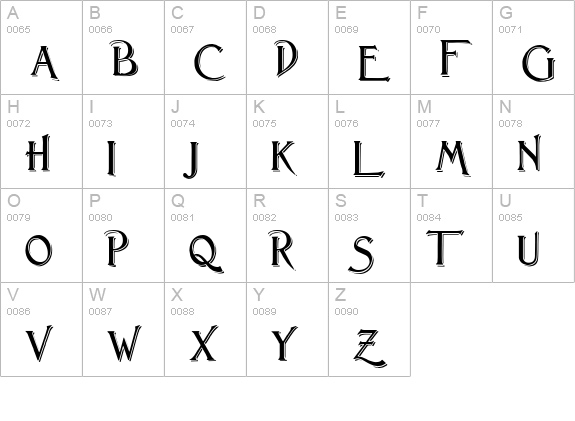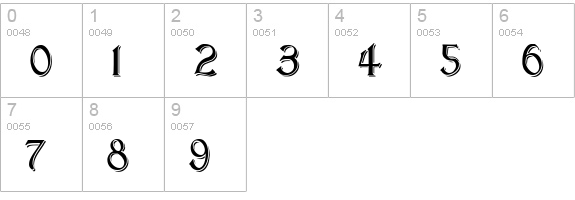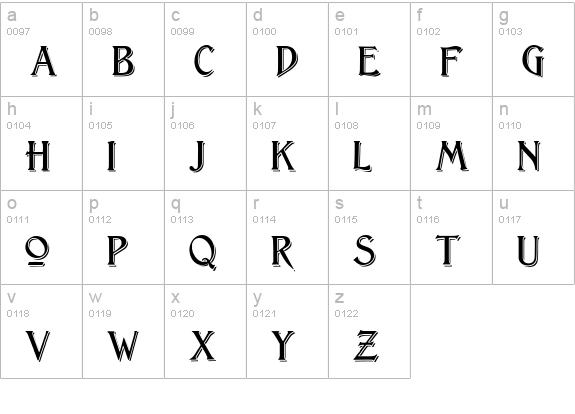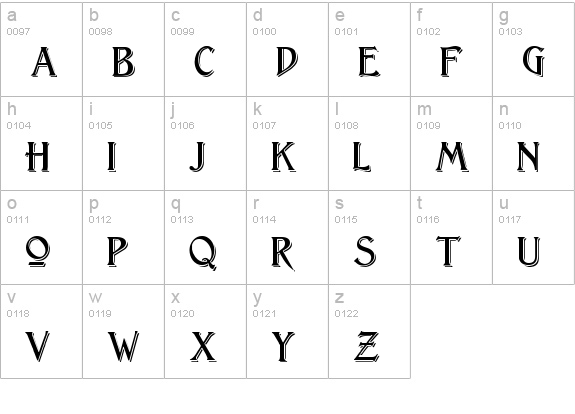
Lightfoot Shadowed font is a captivating and elegant typeface that exudes sophistication and charm. Its intricate shadowed design adds depth and dimension to any text, making it perfect for headlines, invitations, or any project that requires a touch of refinement. The delicate curves and fine details of Lightfoot Shadowed font create a sense of timeless beauty, making it a versatile choice for both print and digital designs. Best of all, Lightfoot Shadowed font is available for free download at FontsMarket.com. This means you can easily add this exquisite font to your collection without any cost, allowing you to elevate your designs with a touch of luxury without breaking the bank. Don't miss out on the opportunity to enhance your projects with the stunning beauty of Lightfoot Shadowed font, available for free at FontsMarket.com.